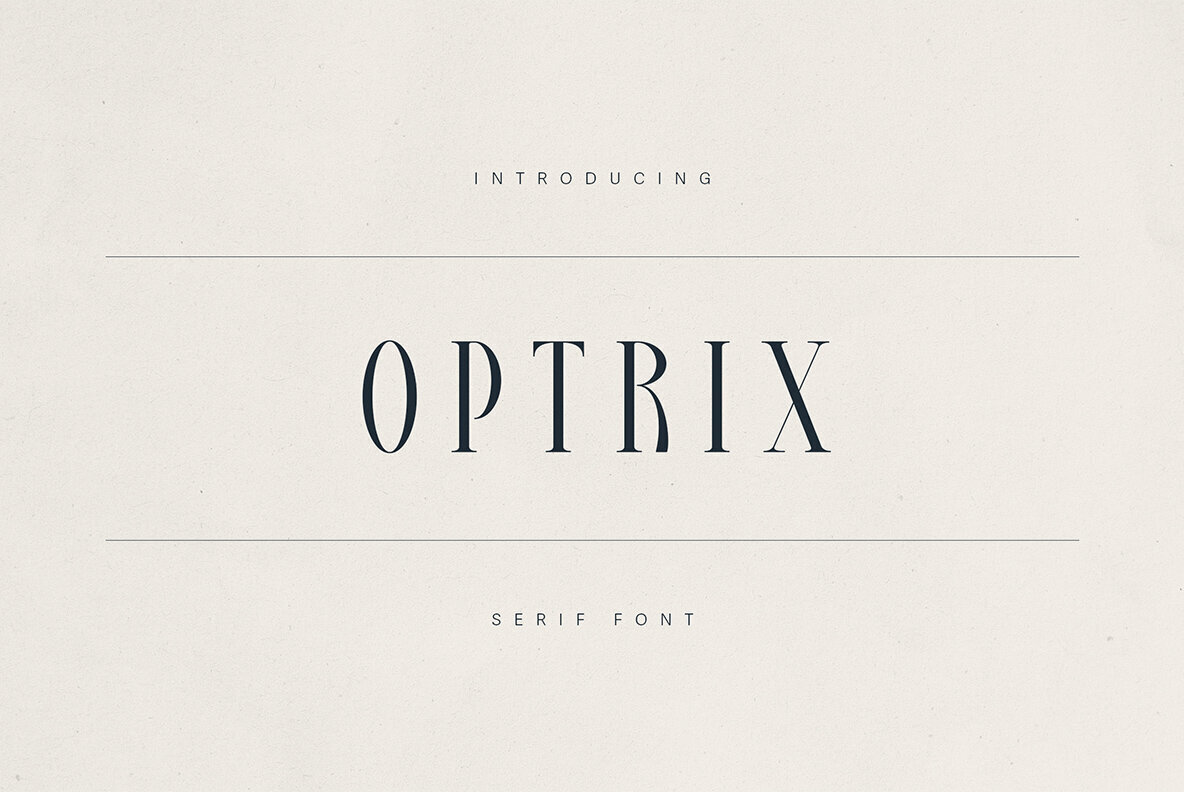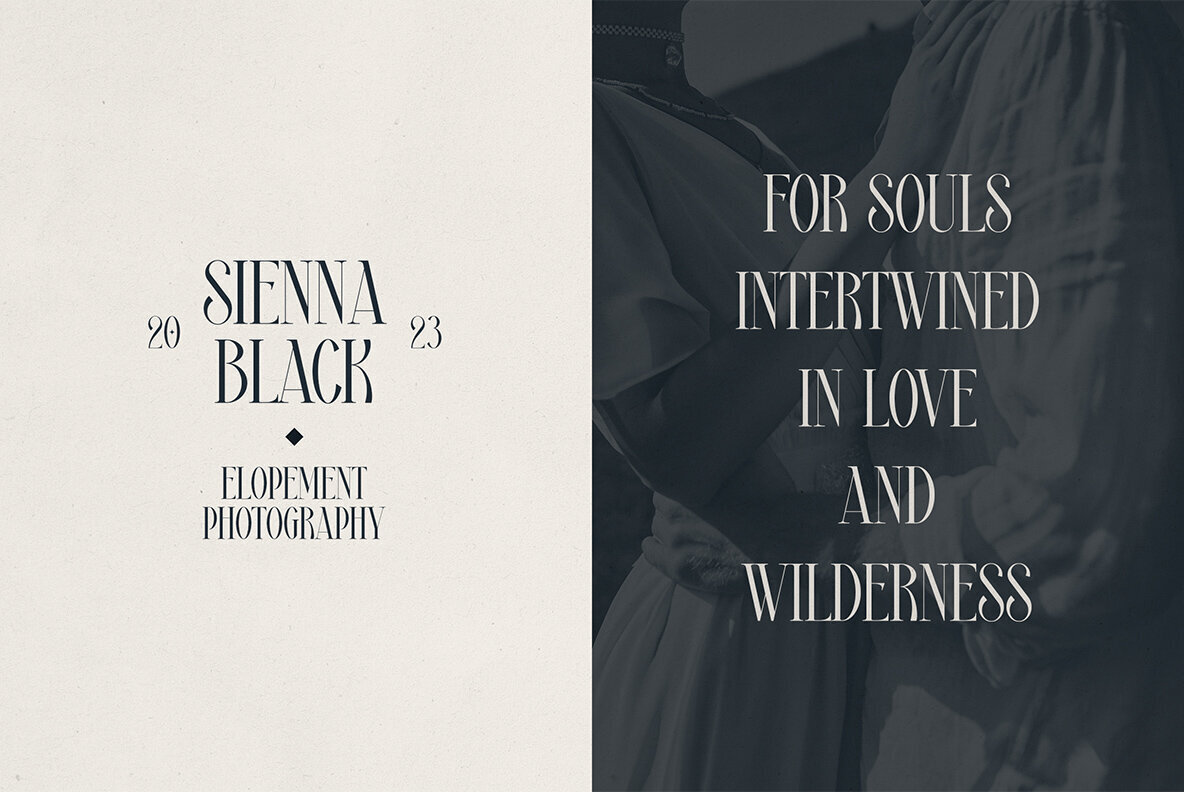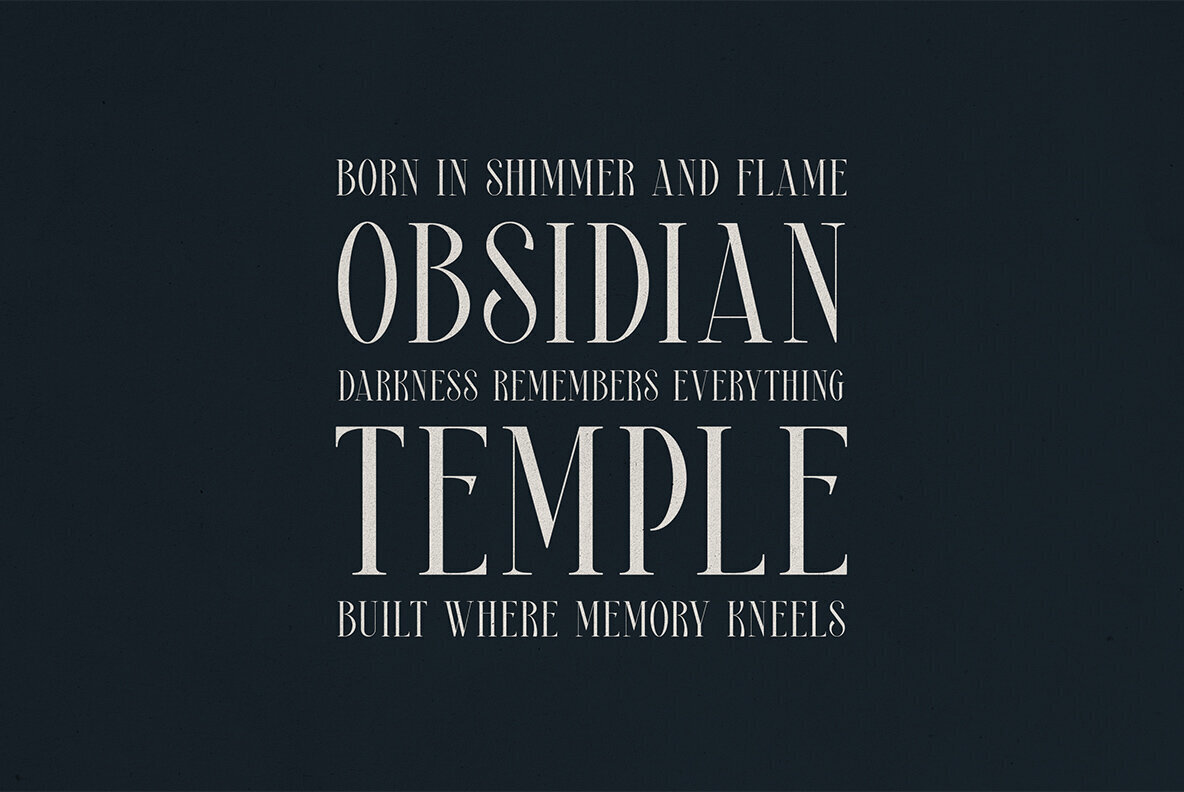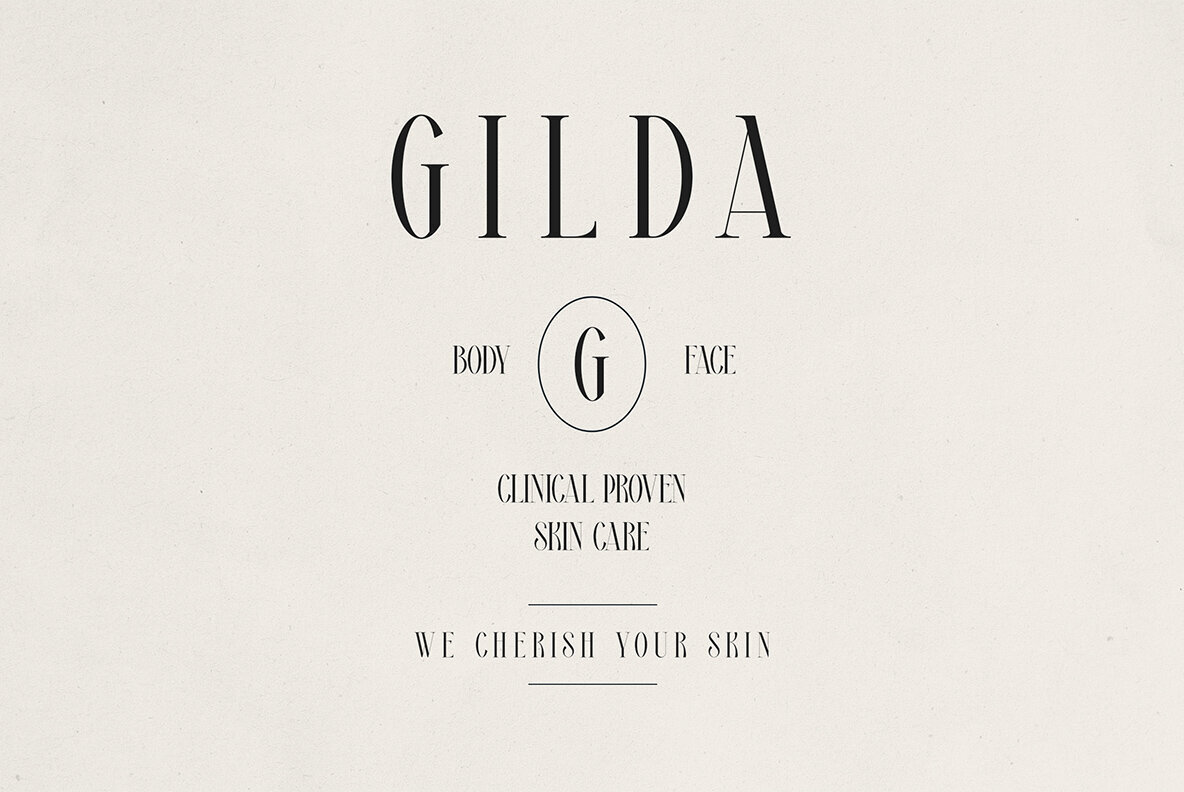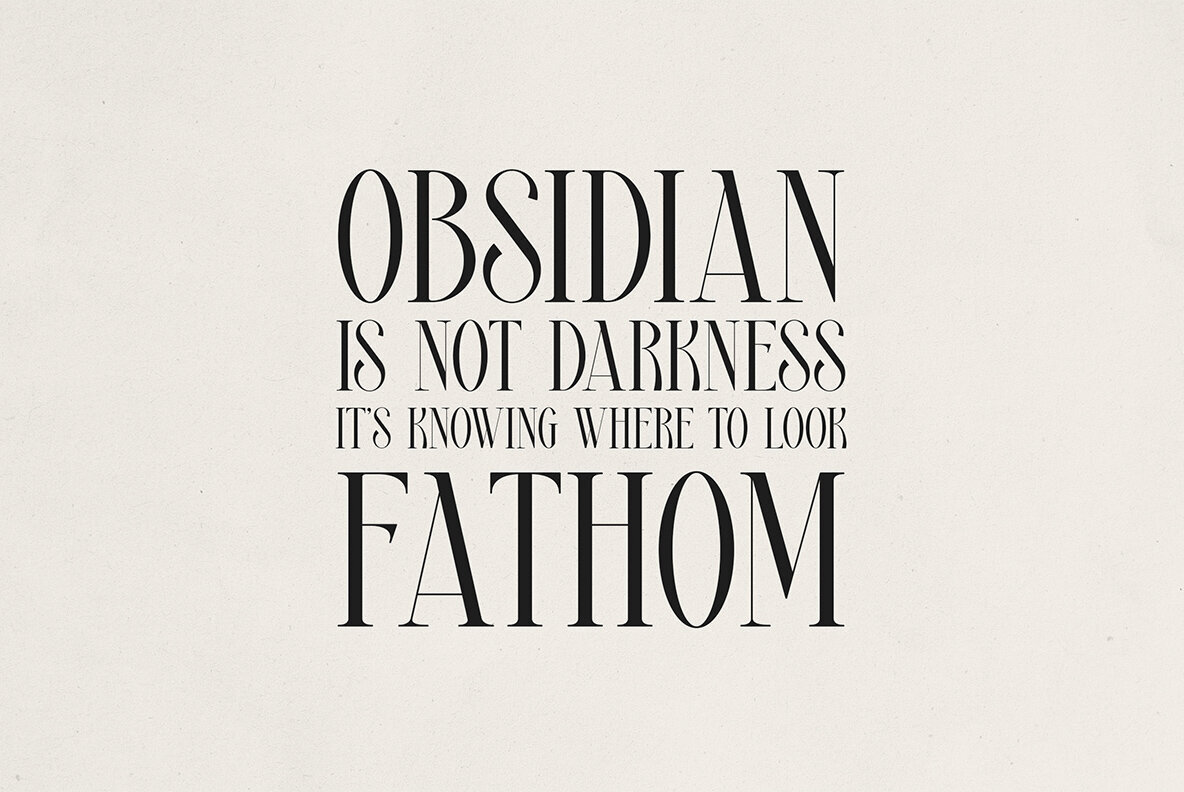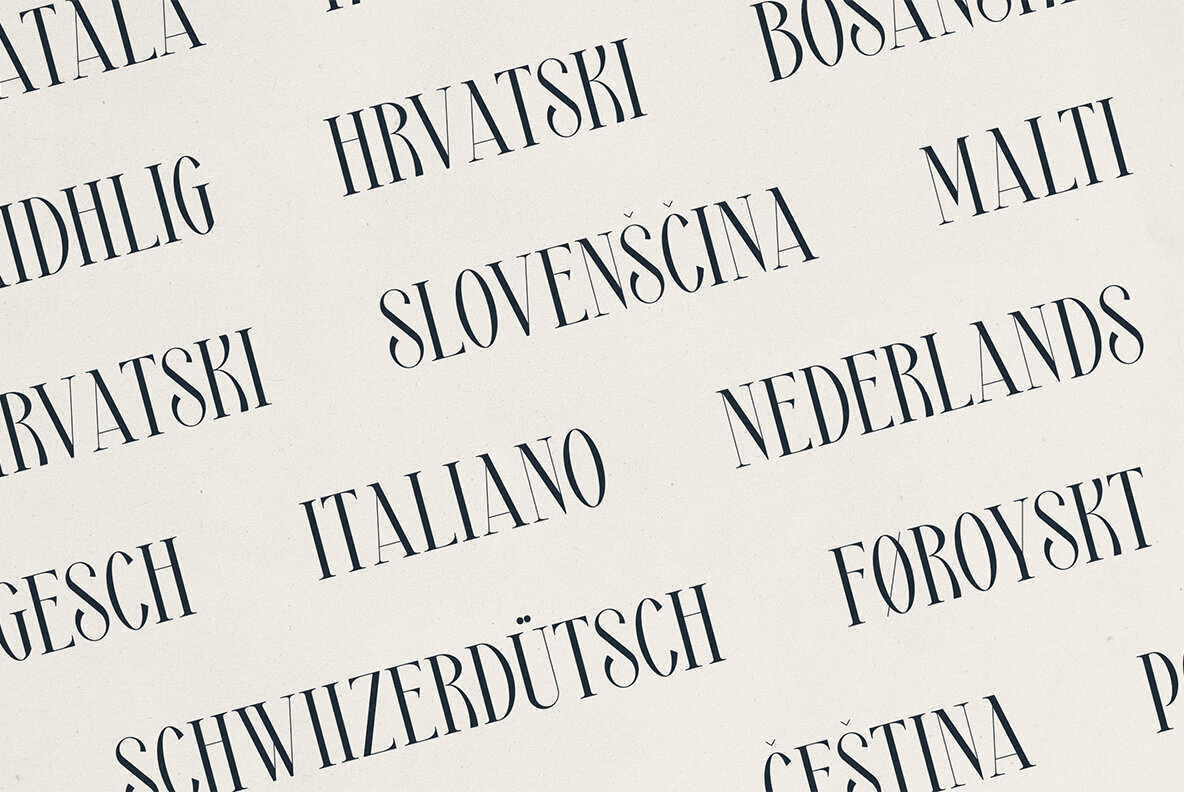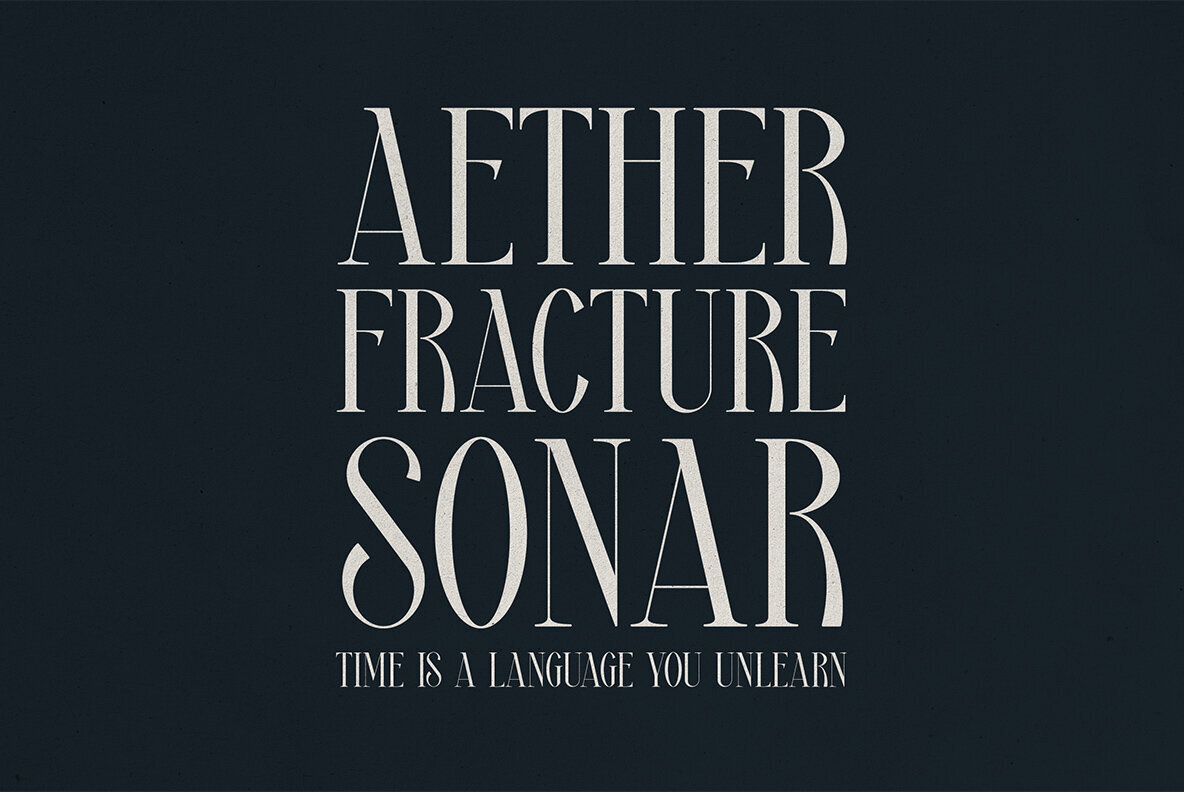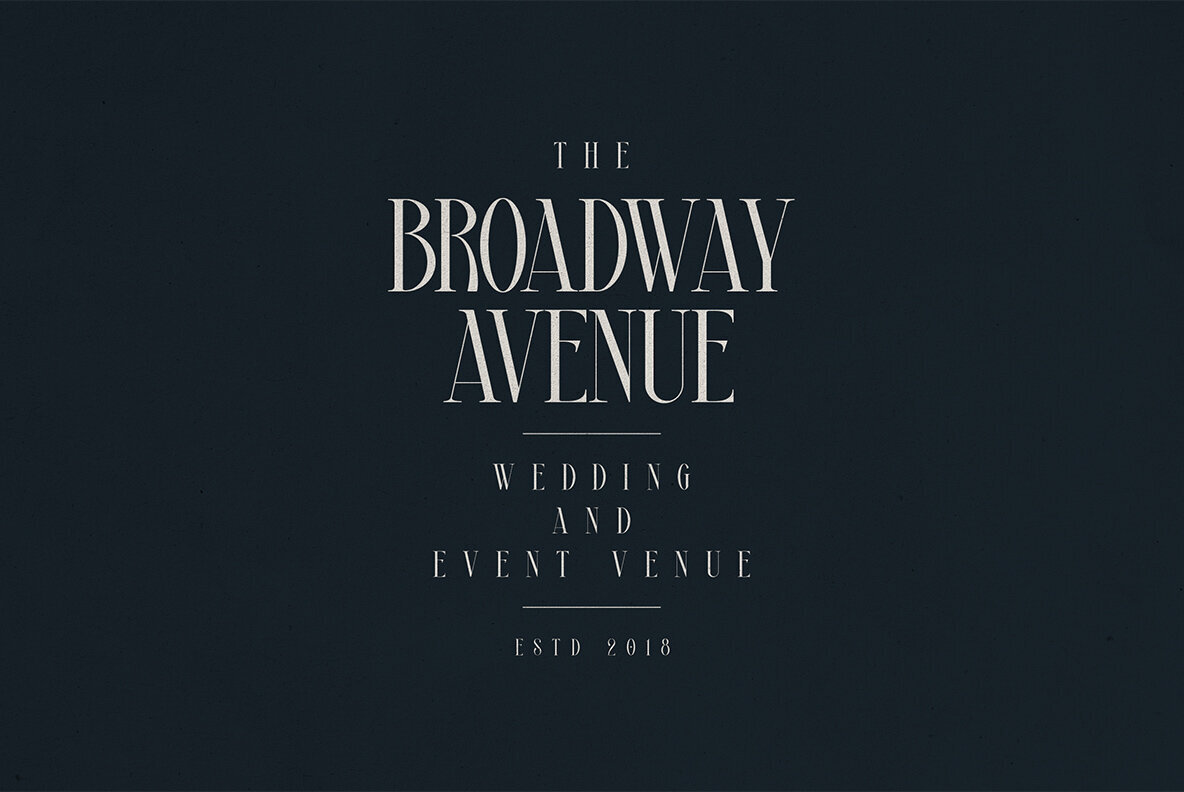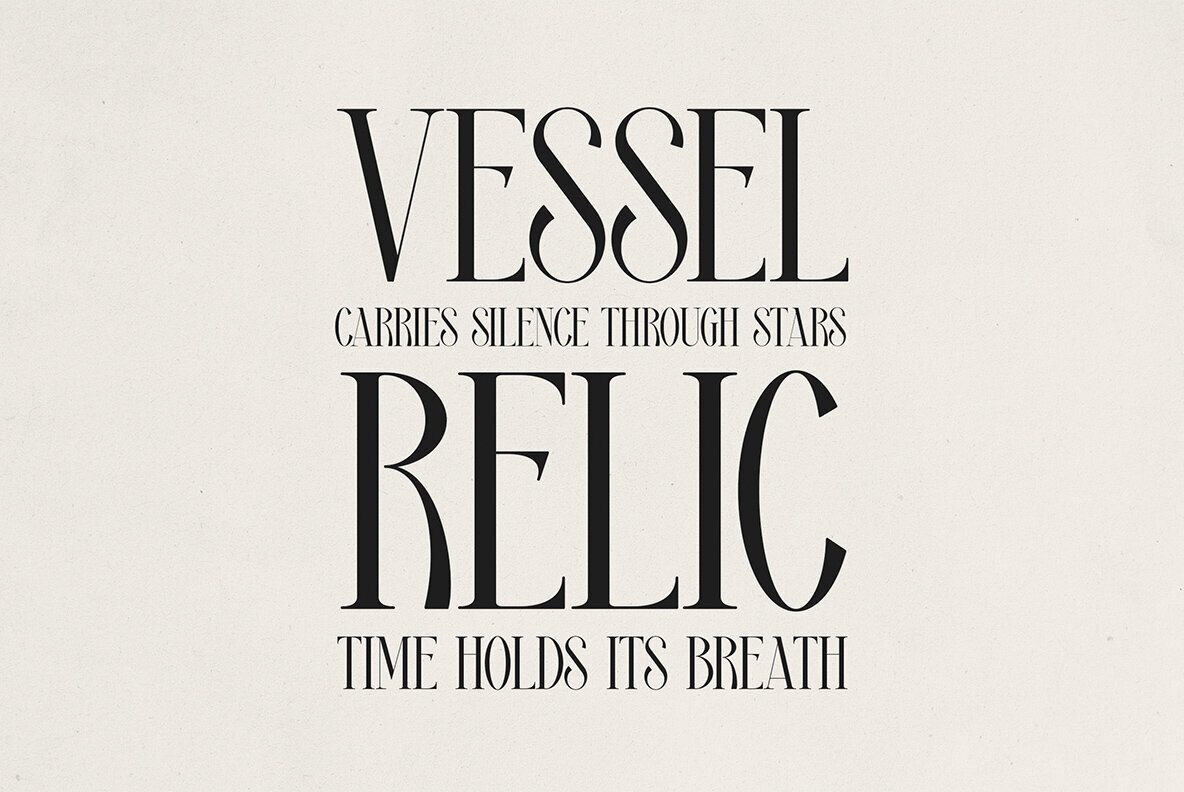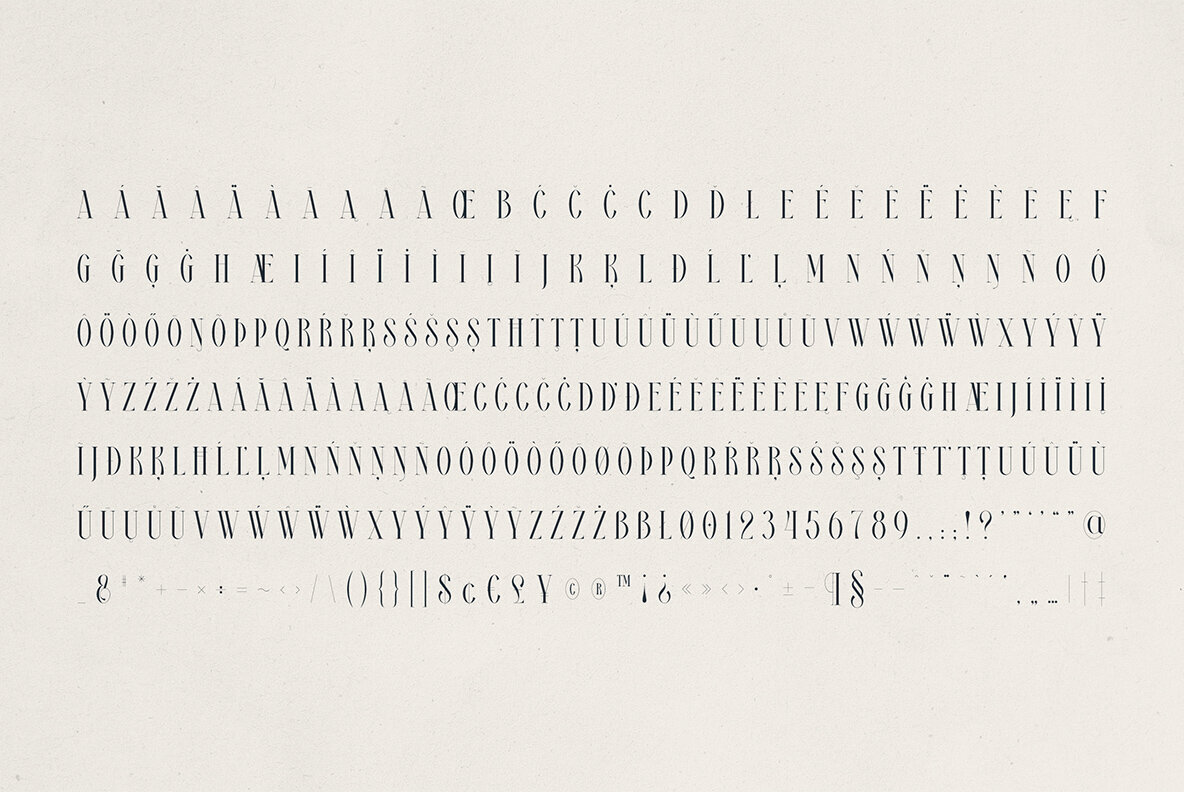
Optrix Font
Optrix Regular
Introducing Optrix, a polished serif font crafted to bring a touch of elegance and charm to your creative endeavors. With its high-contrast strokes and elongated letterforms, Optrix seamlessly melds traditional editorial allure with a contemporary edge. Ideal for luxury branding, wedding stationery, and high-end packaging, this font is perfect for designers seeking a balance between drama and readability. Built for both print and digital use, Optrix offers timeless charm with a modern twist, with tall, narrow proportions for high visual impact. It supports a wide array of multilingual characters, making it a versatile choice for global designs. An essential addition to any designer’s font library for a refined touch.Optrix Serif Typeface: Elegance & Modernity
Designed for Maximum Impact